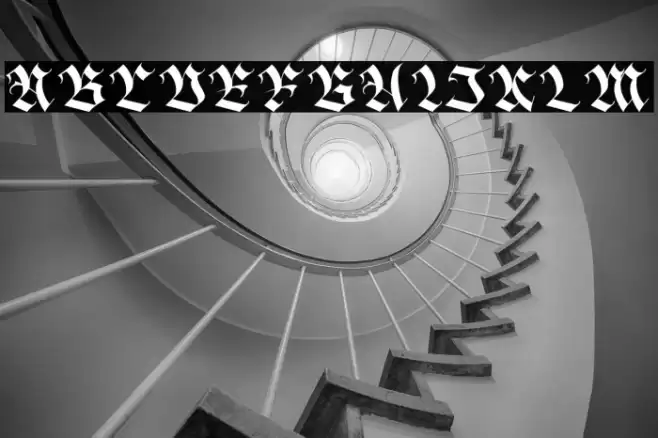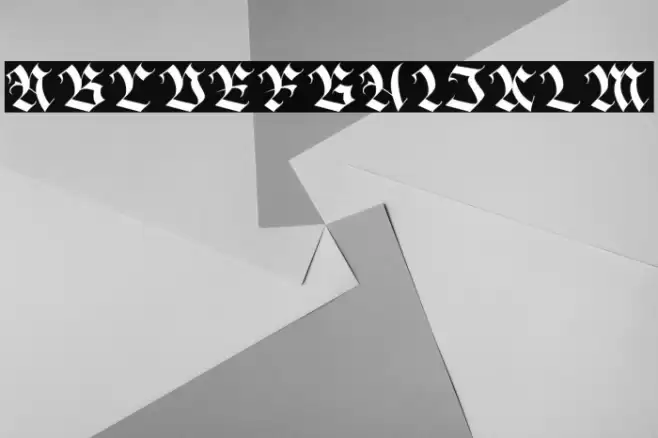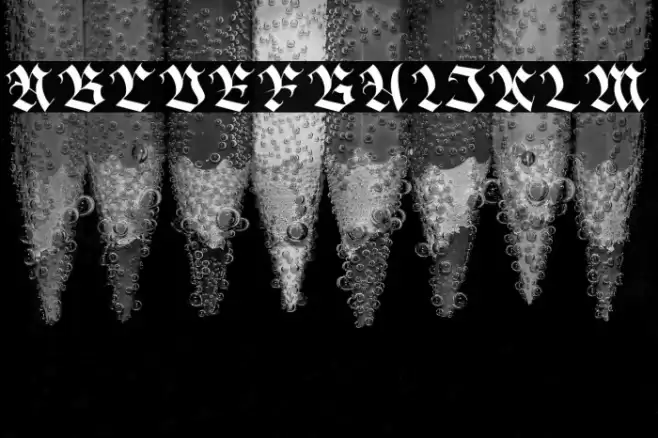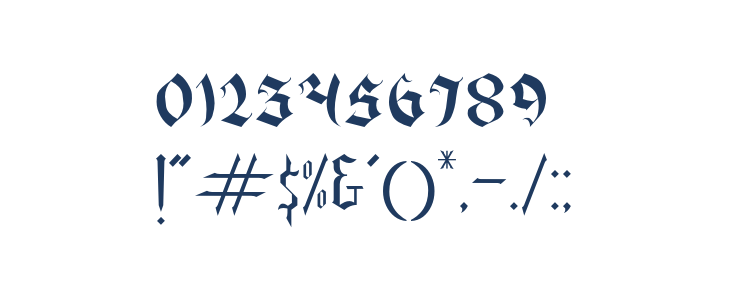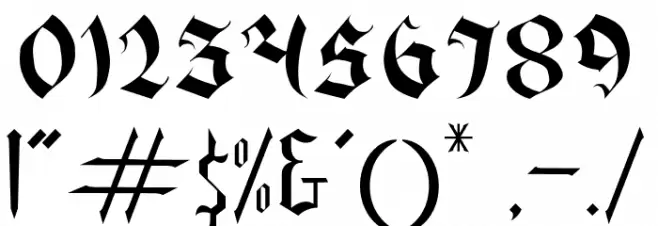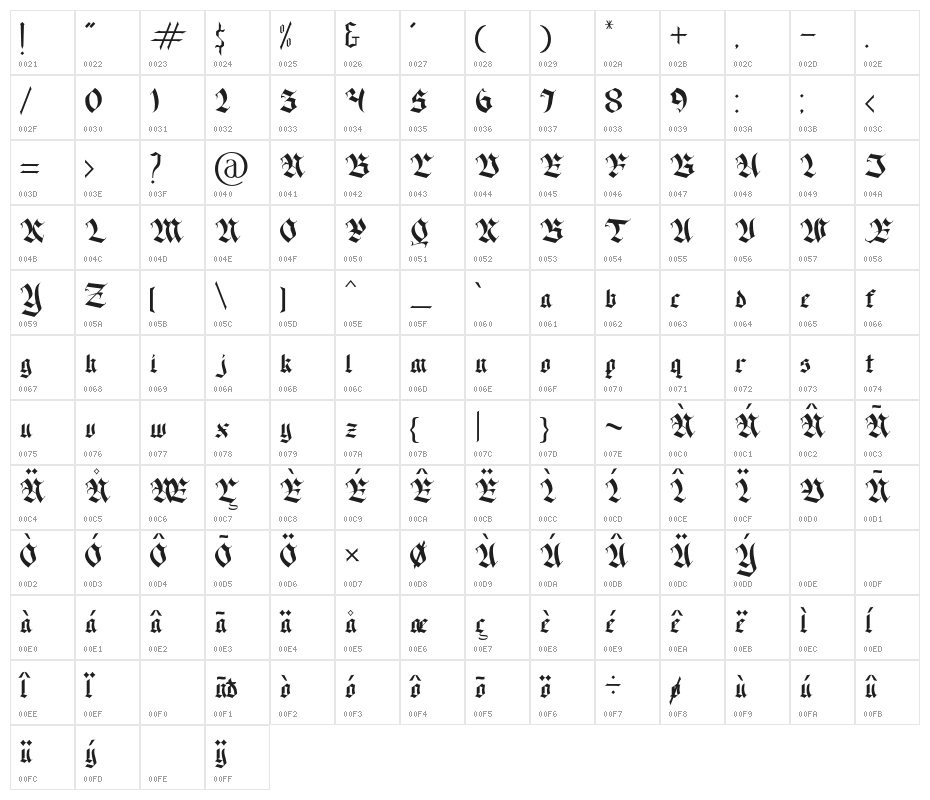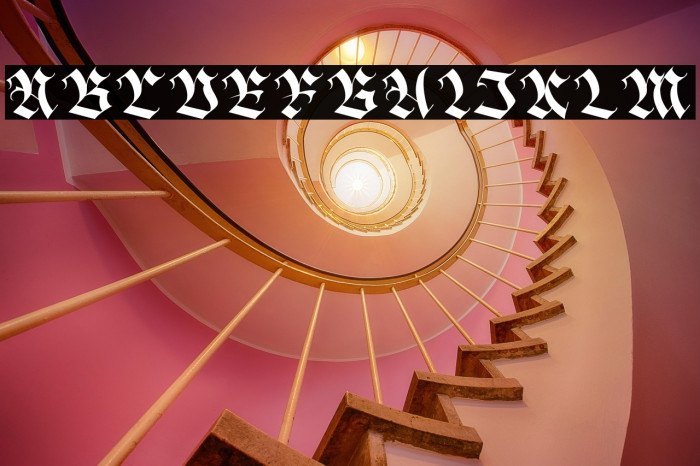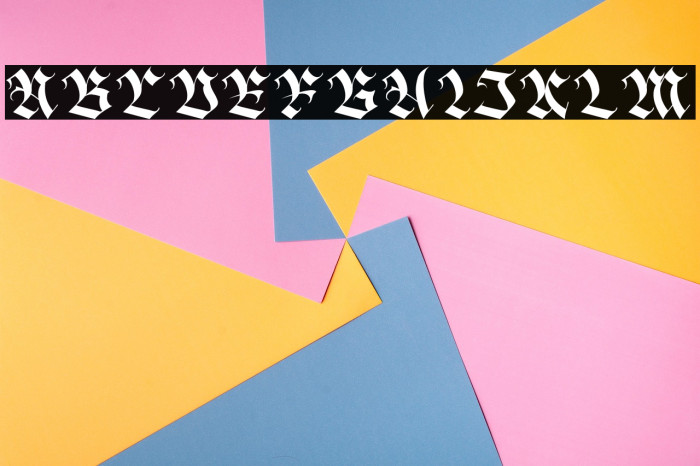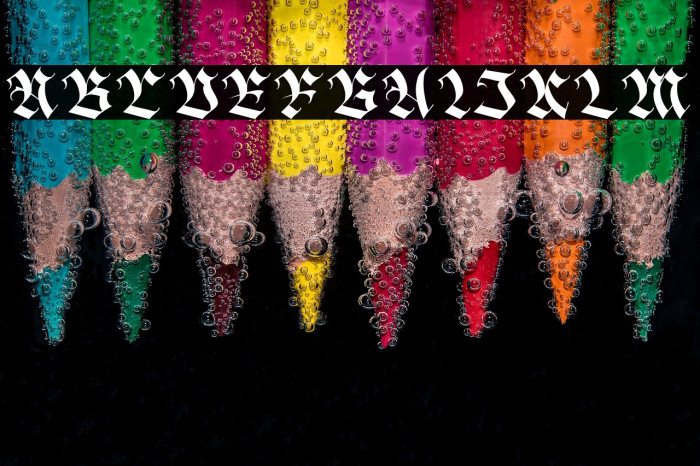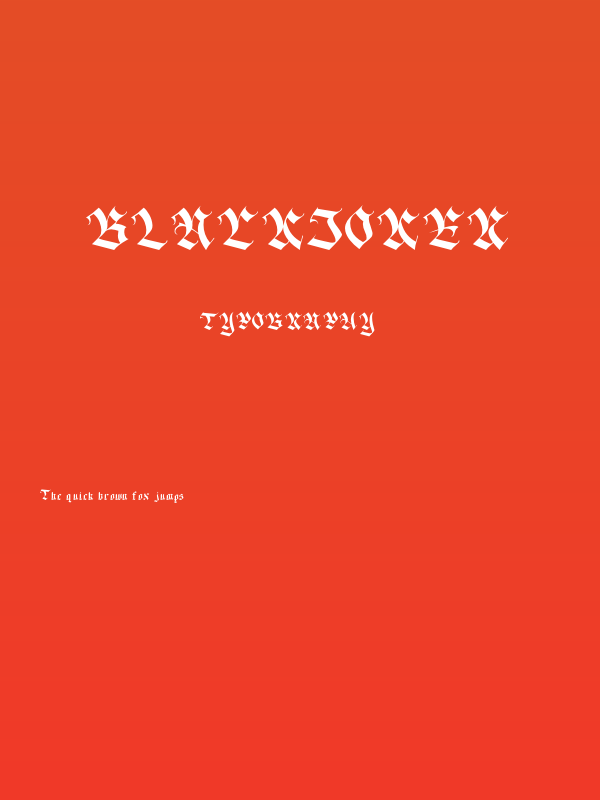
BlackJoker Font
BlackJoker Description
This font embodies a classic Blackletter style, characterized by its bold, angular strokes and intricate detailing. The uppercase letters exhibit a strong, authoritative presence with sharp edges and dramatic flourishes, while the lowercase letters maintain a consistent, flowing script that complements the overall aesthetic. The numerals are equally bold, with a distinctive medieval flair that enhances the font's historical appeal. Special characters are crafted with the same attention to detail, ensuring a cohesive look across all glyphs. This font is perfect for projects that require a touch of elegance and tradition, making it ideal for formal invitations, certificates, and branding that seeks to evoke a sense of heritage.
A bold, angular Blackletter font with intricate detailing and a medieval flair from Uncategorized fonts.
- Overall Style: Classic